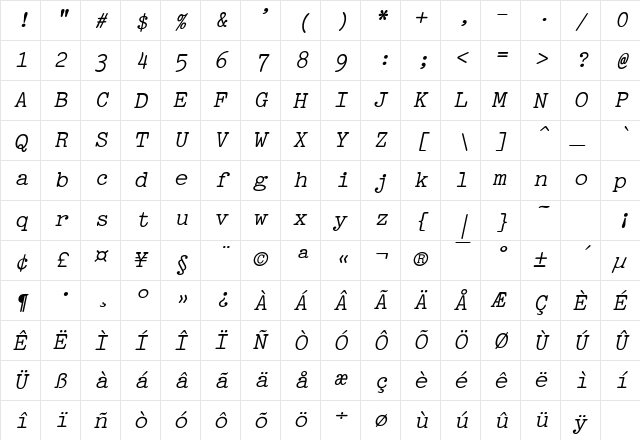
Pica BoldItalic
Design Context for Pica Typeface
Pica is a composed and adaptable typeface that performs quietly and consistently across a wide range of design contexts. The dynamic lean of this cut emphasises speed and emphasis in any layout. Its bold stroke weight gives it real presence on the page.
Pro Tip: Use Pica for emphasis, pull quotes, and subheadings where its slanted energy can add rhythm to the layout.